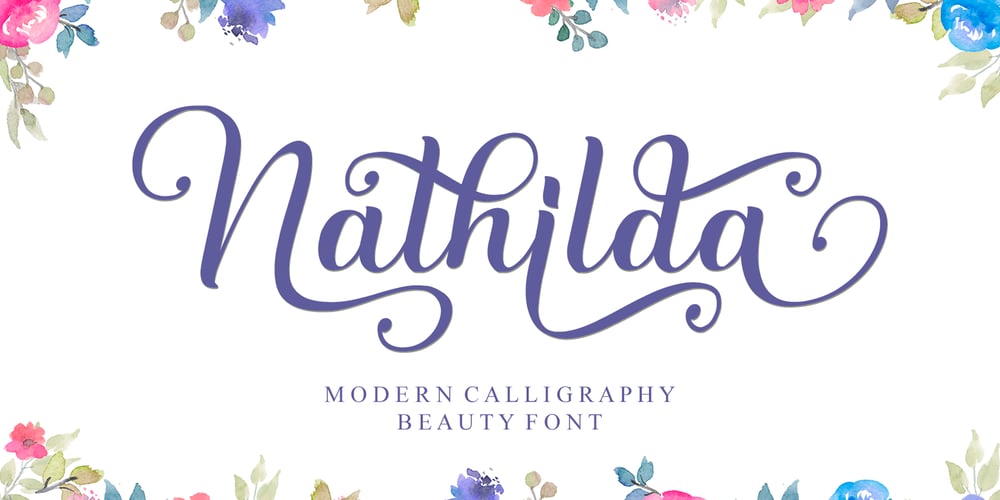
Nathilda Font Family was designed by Ahmad Afandi and published by Letterafandi Studio. Nathilda contains 2 styles and family package options. Nathilda is a flowing handwritten font, described by an elegant touch, perfect for your favorite projects. This font is PUA encoded which means you can access all of the glyphs and swashes with ease!